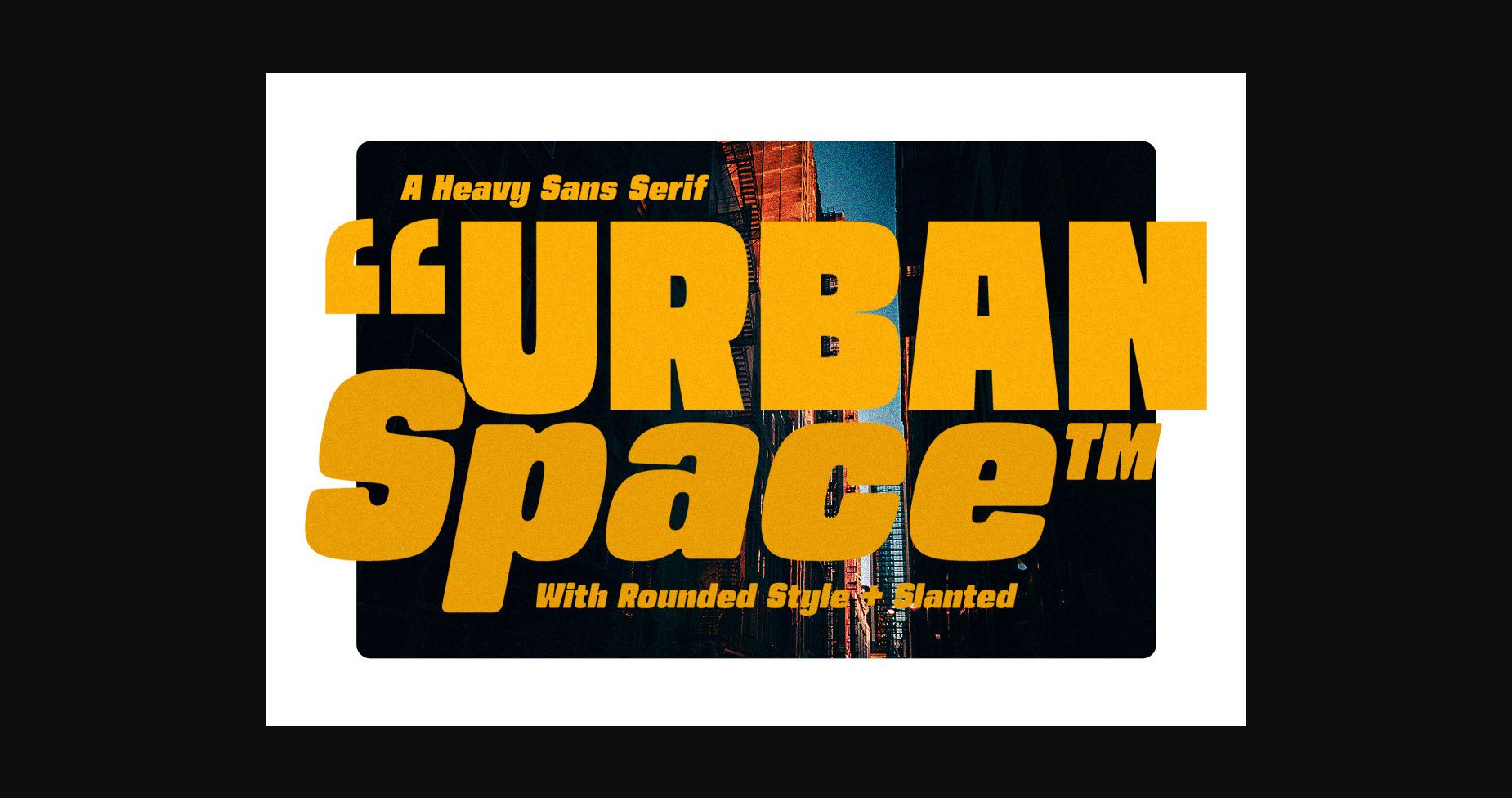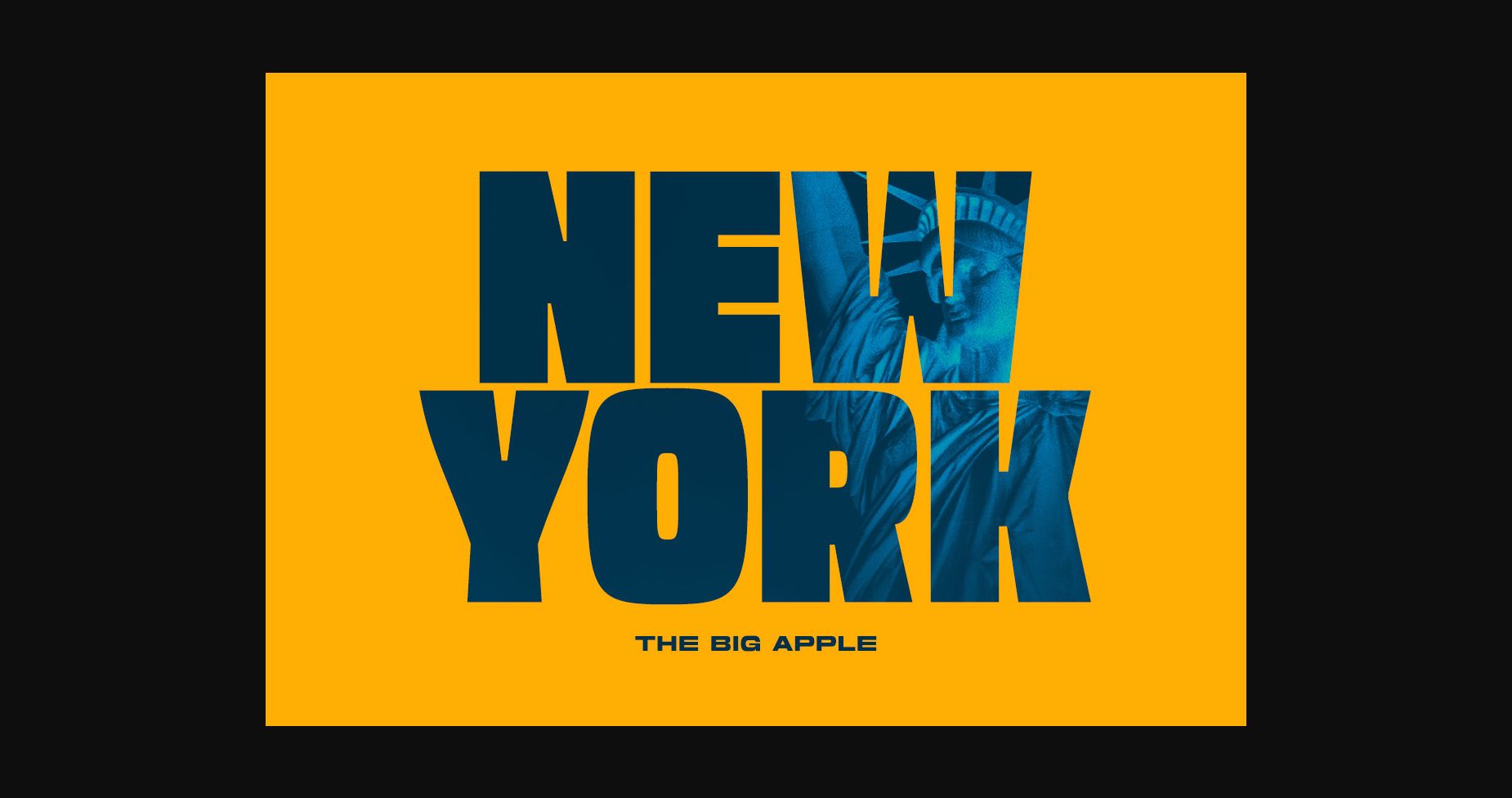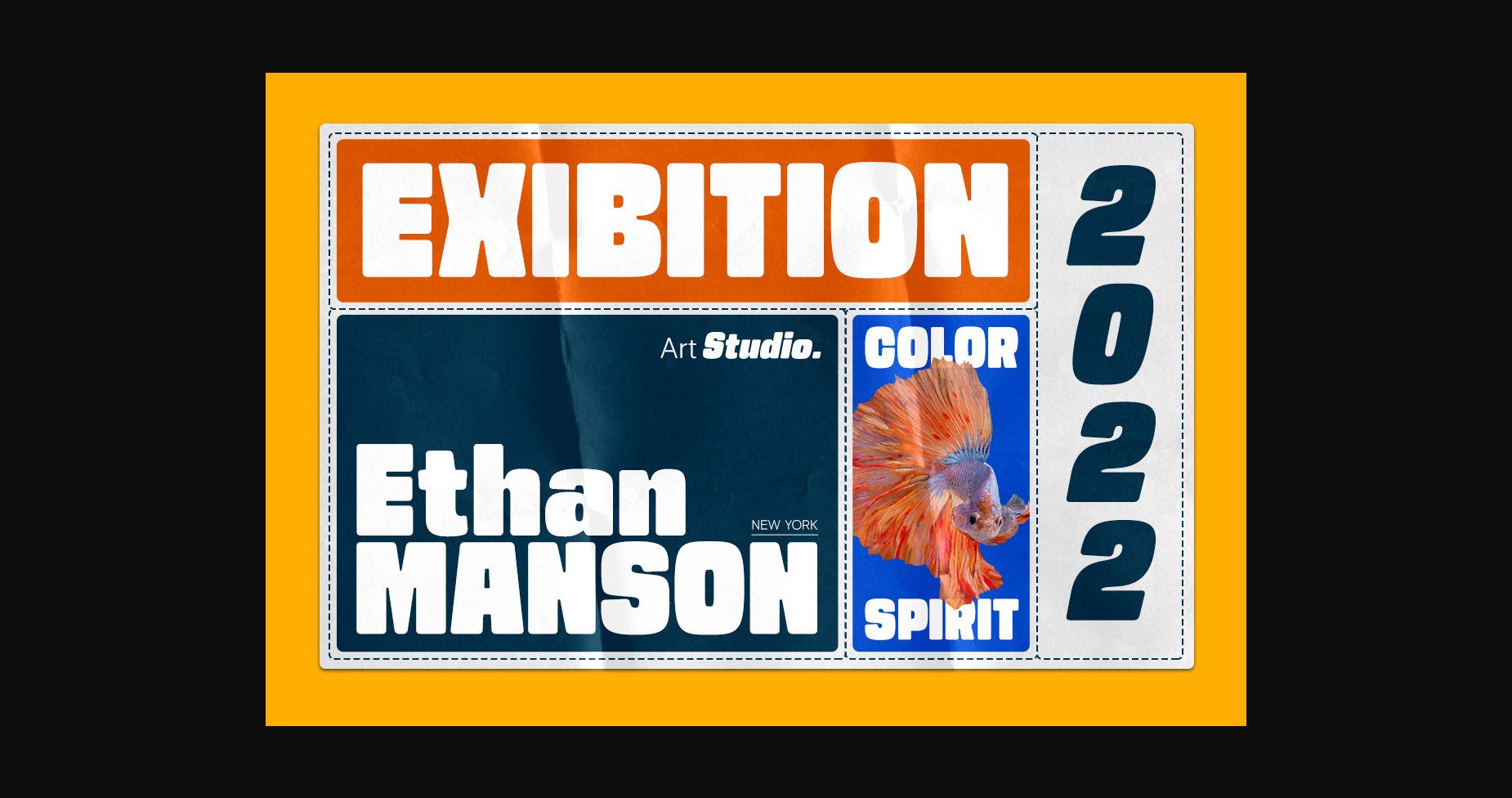
About Urban Space Font
Urban Space is a heavy and bold sans serif font. It is suitable for logotype, headline font, in corporate identity, brand identity, apparel industry, poster, music, movie, game, magazine, book, comic, cartoon, YouTube, Instagram, website, or any of your creative design projects.